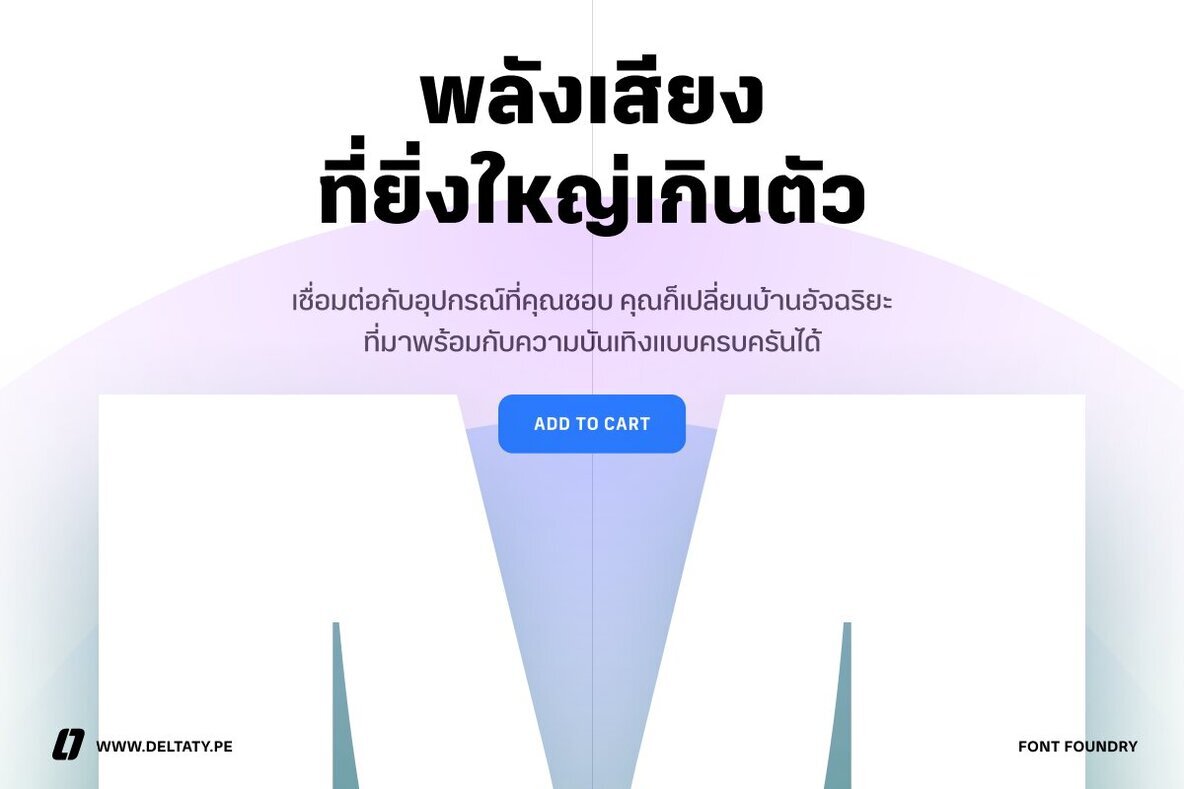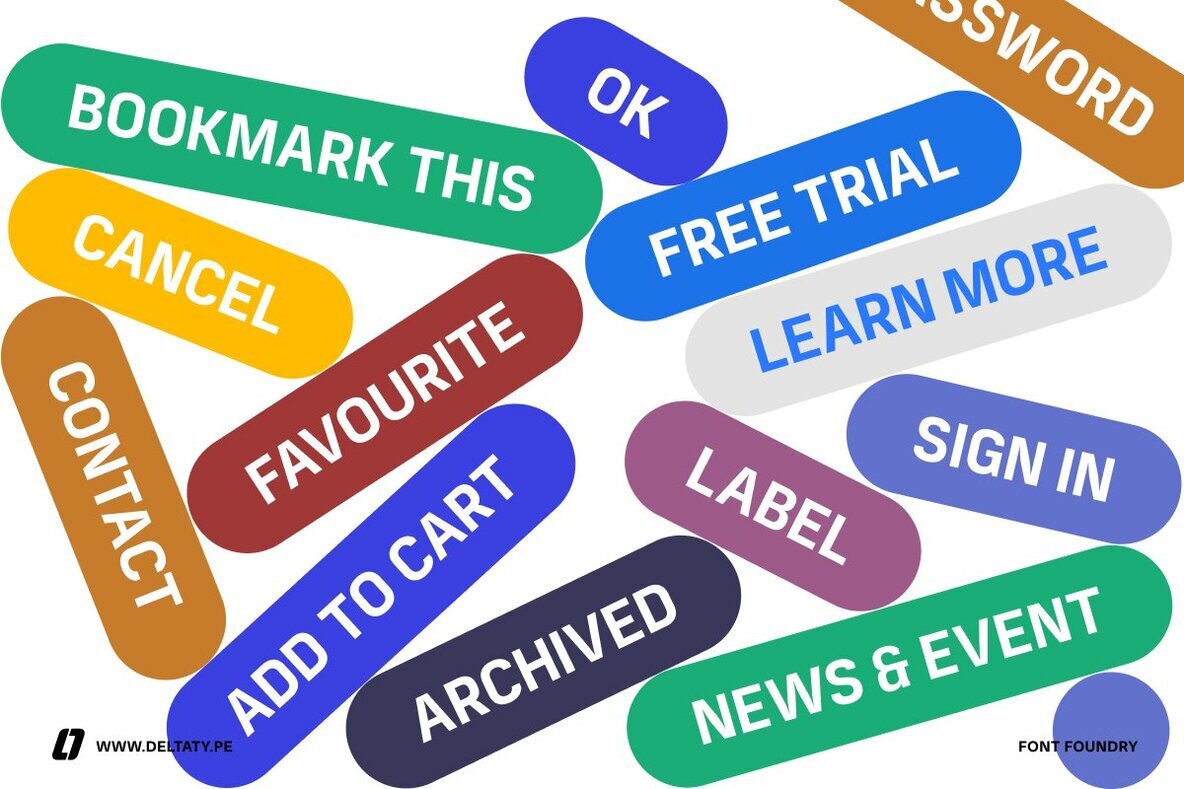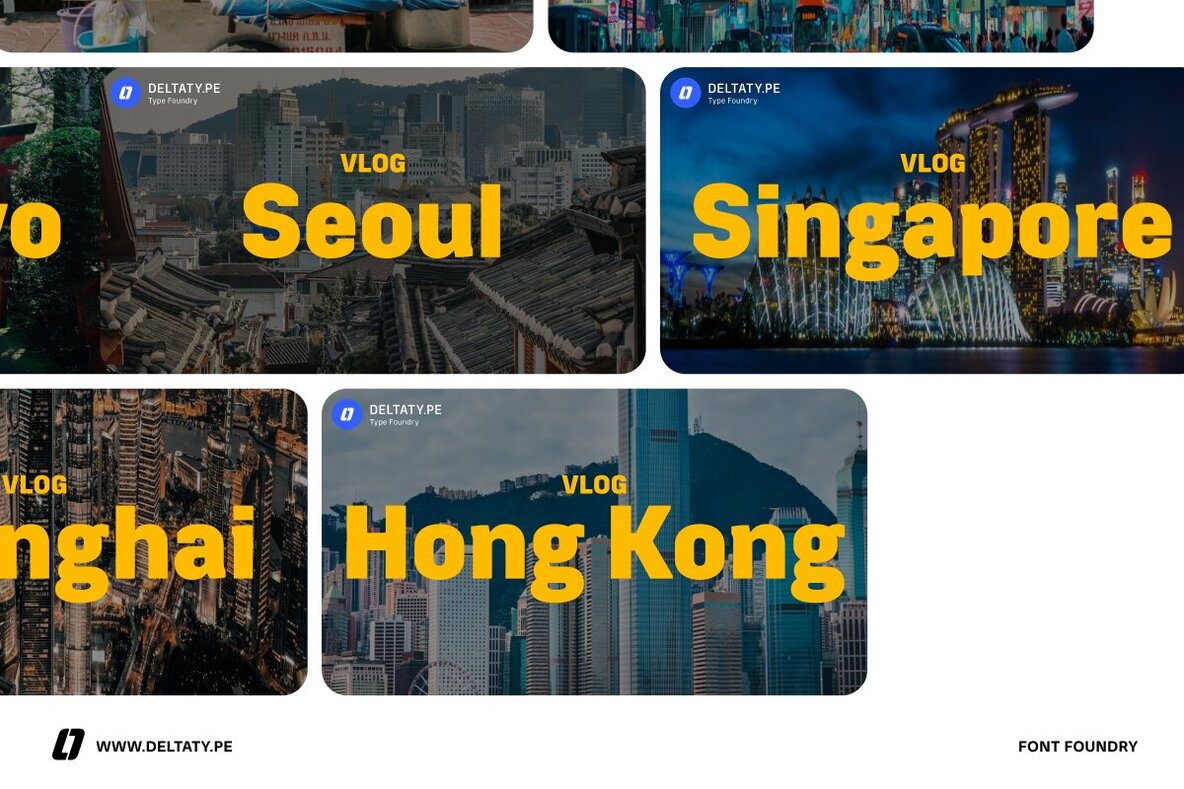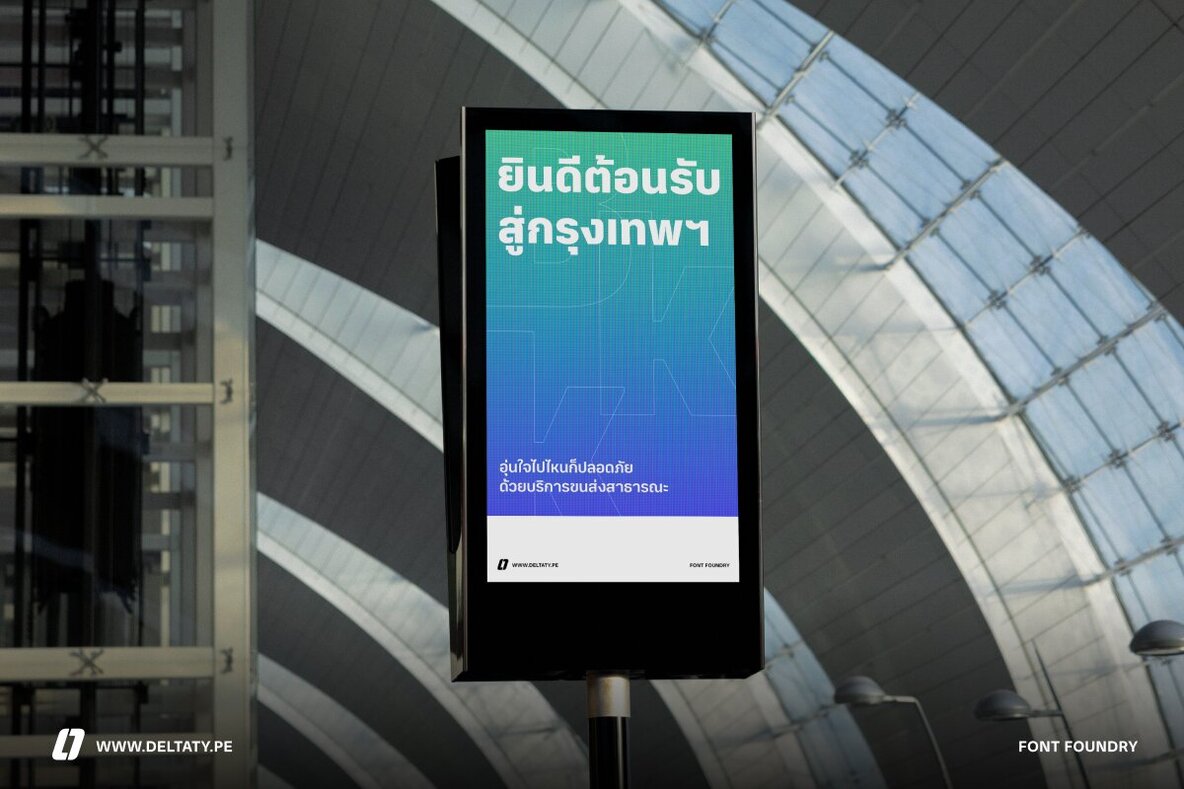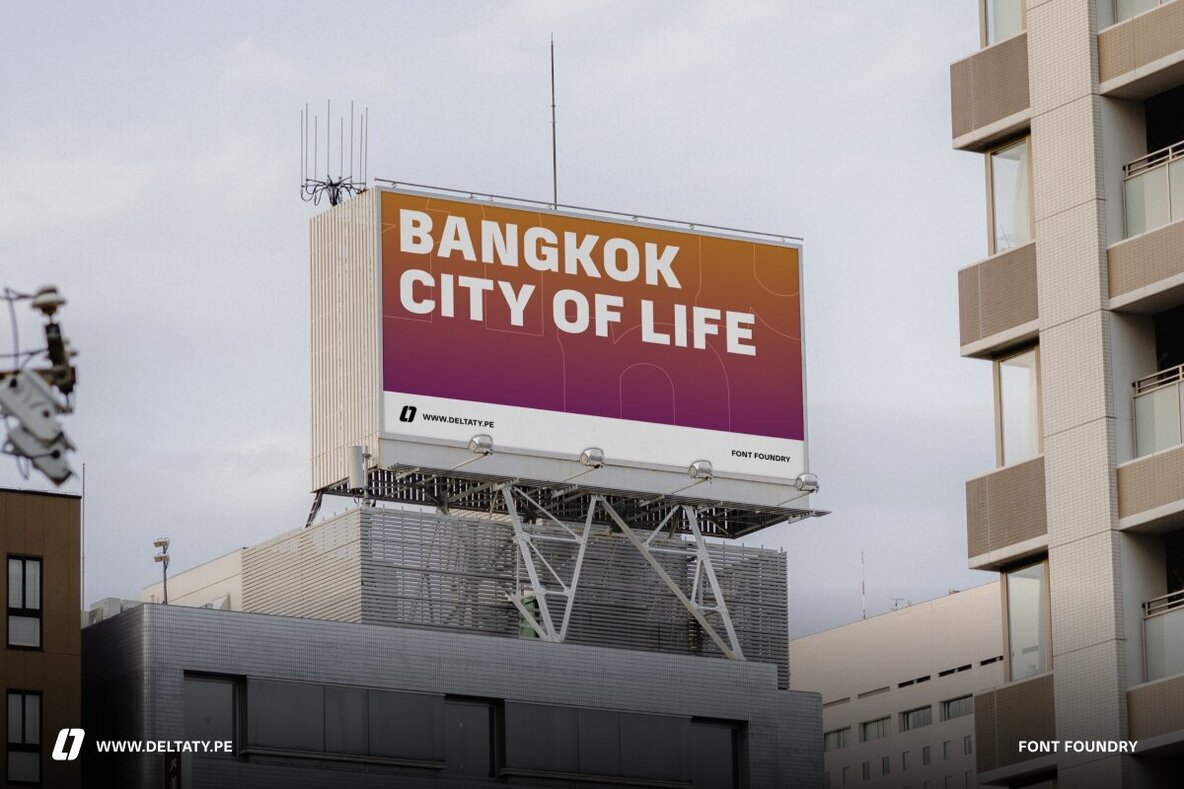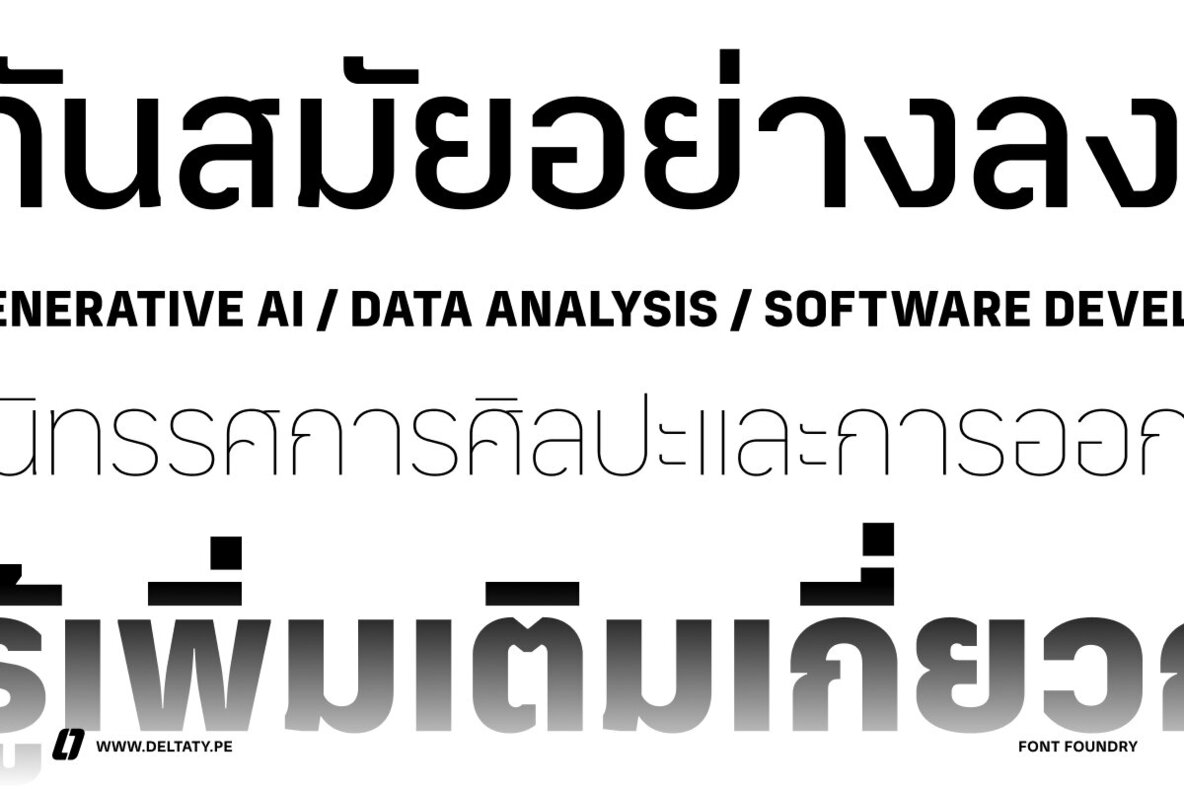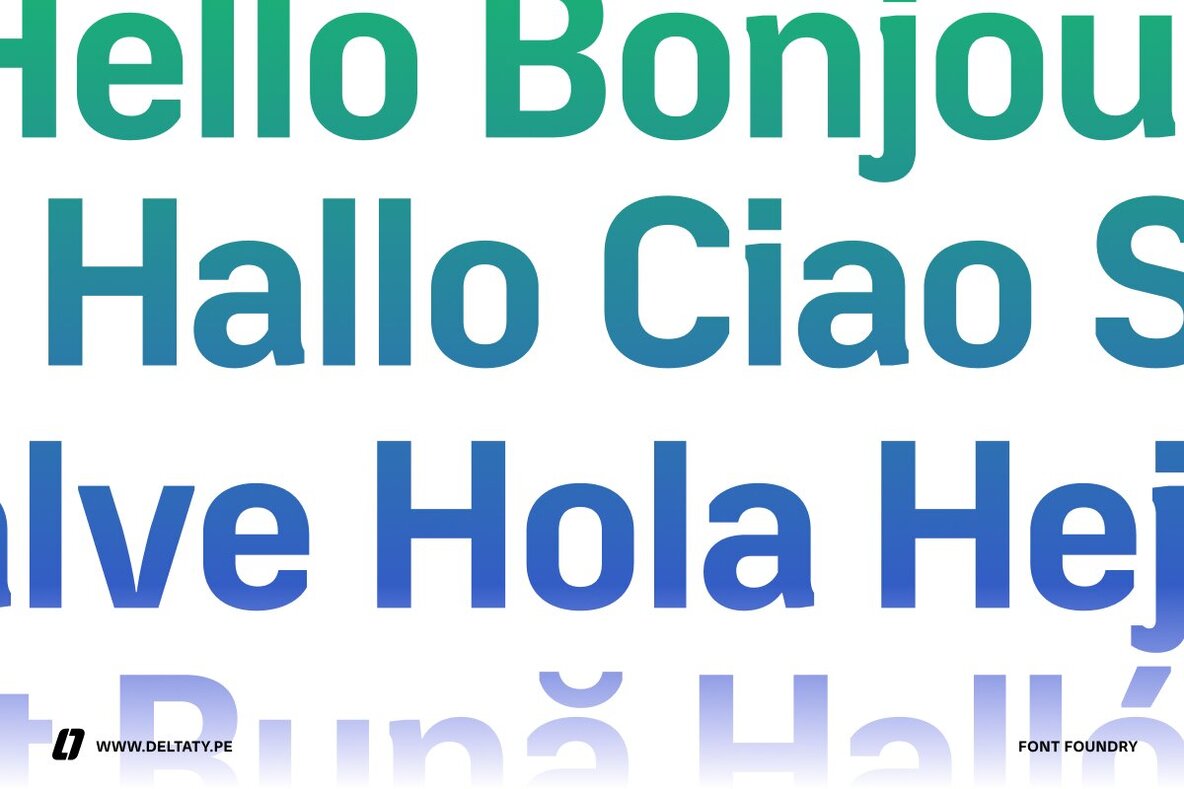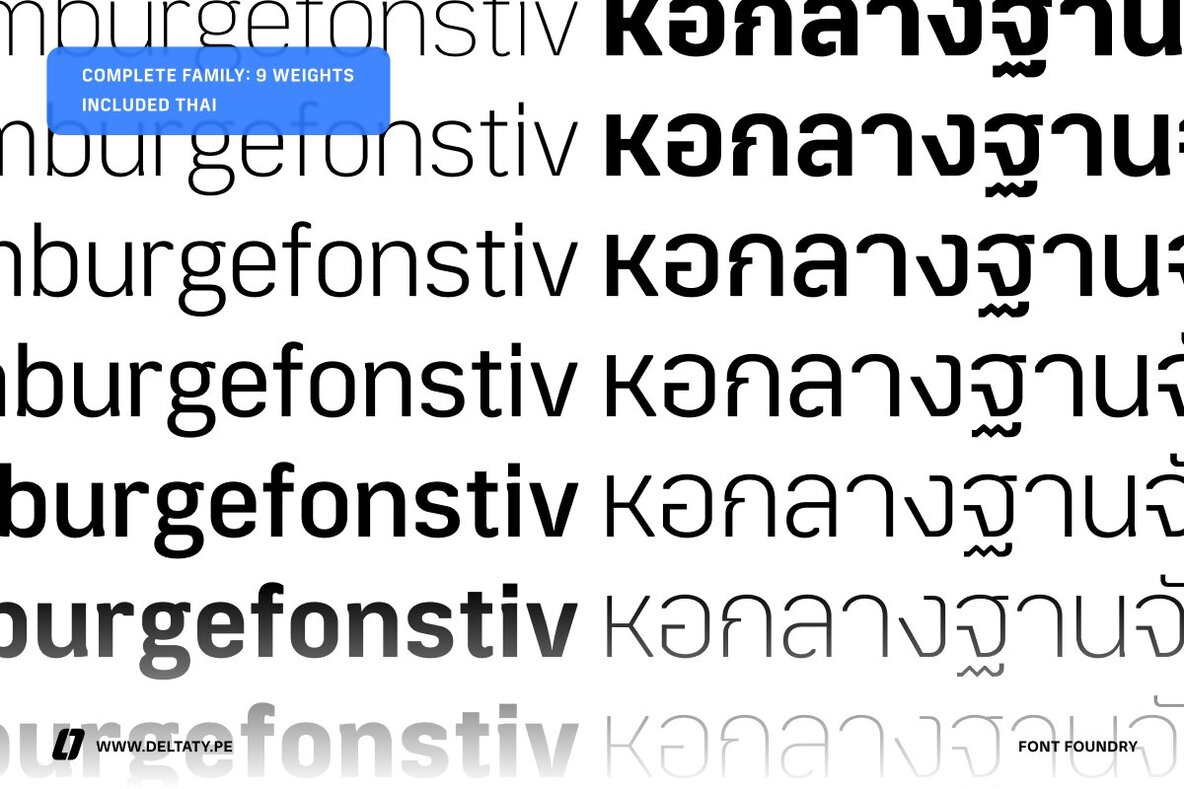
Meldr Thai 1
Meldr™ is a bold yet sophisticated typeface. Its tall, confident form and a touch of slab bridge strength and modernity in perfect harmony. Designed for impactful display use, Meldr™ excels in headlines, subheadings, and branding applications where presence and clarity matter.
This family comes with nine weights, offering a full spectrum of versatility—from commanding bold styles to refined lighter variations. Meldr™ also includes a complete Thai script, ensuring seamless bilingual typography for global design needs. Its strong structure and balanced proportions make it an excellent choice for editorial, advertising, and identity design.
Elevate your typographic expression with Meldr™—a fusion of power, precision, and modern elegance.